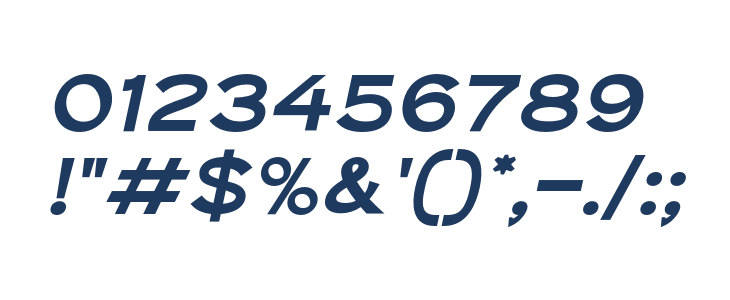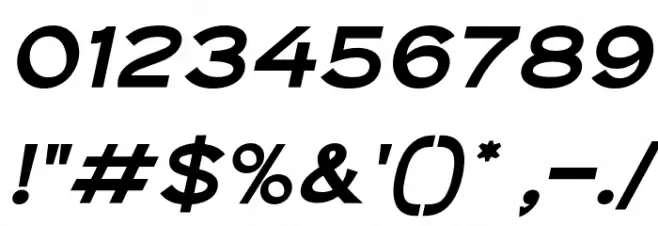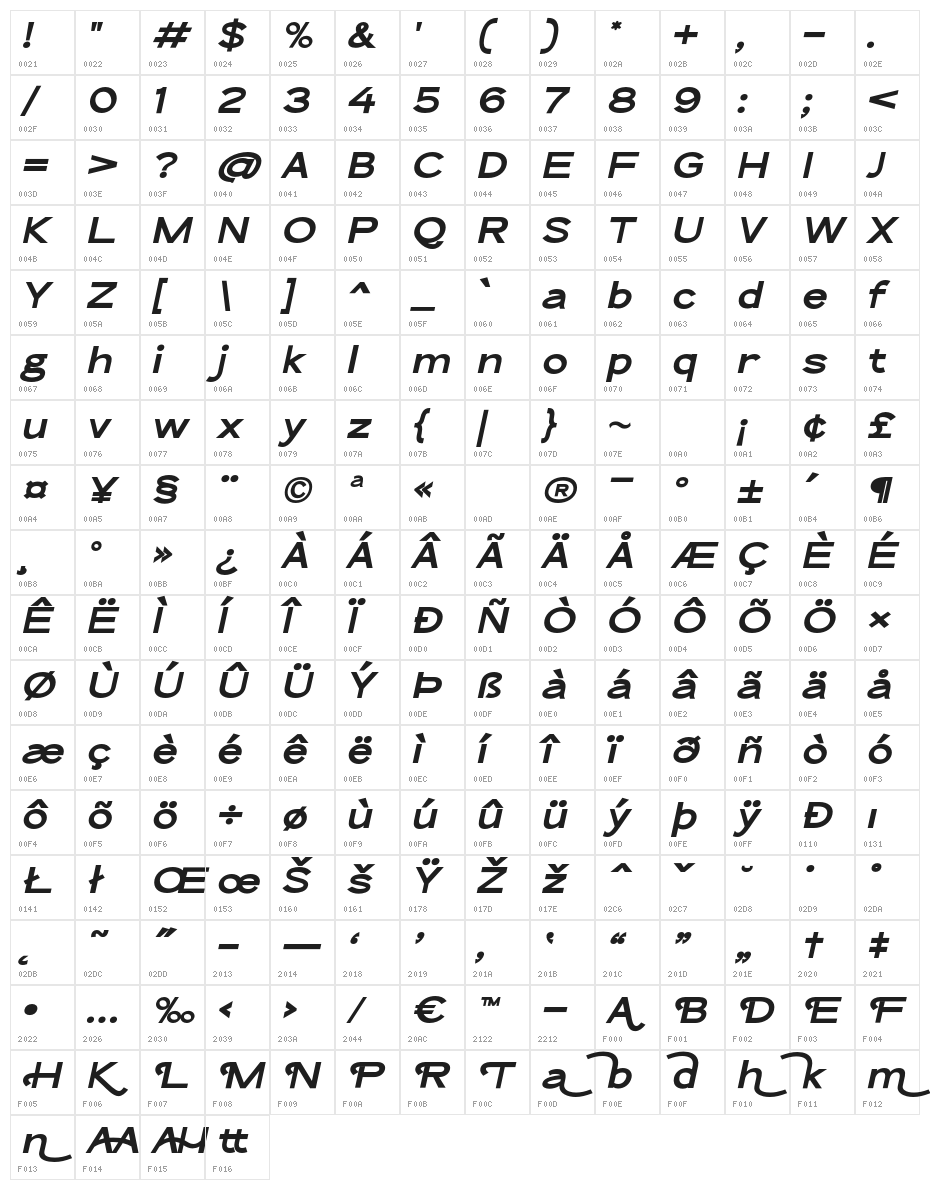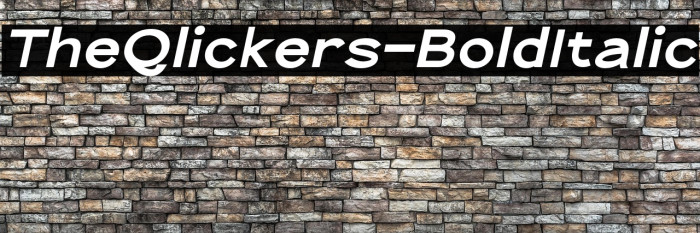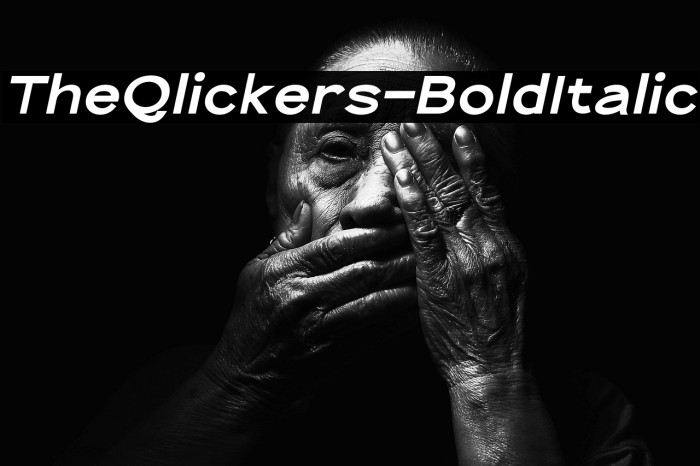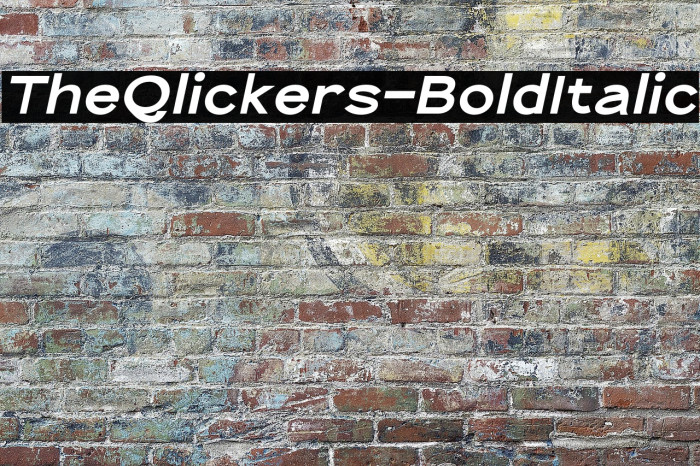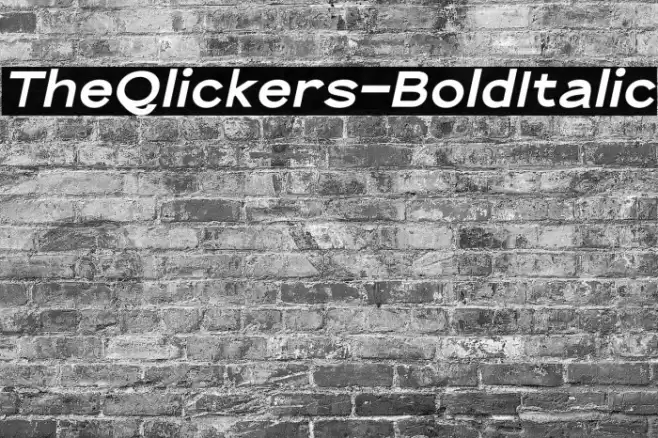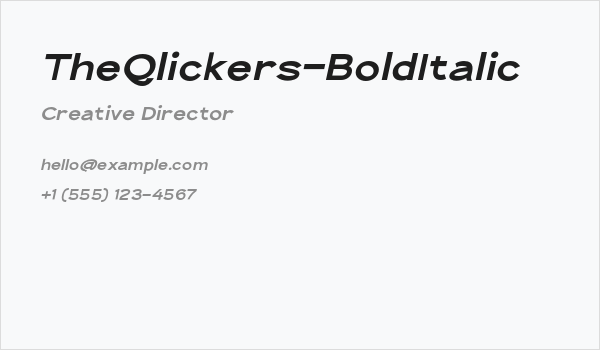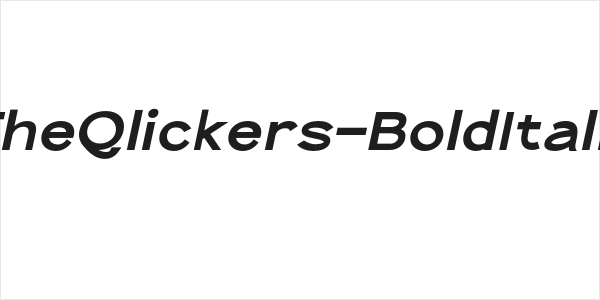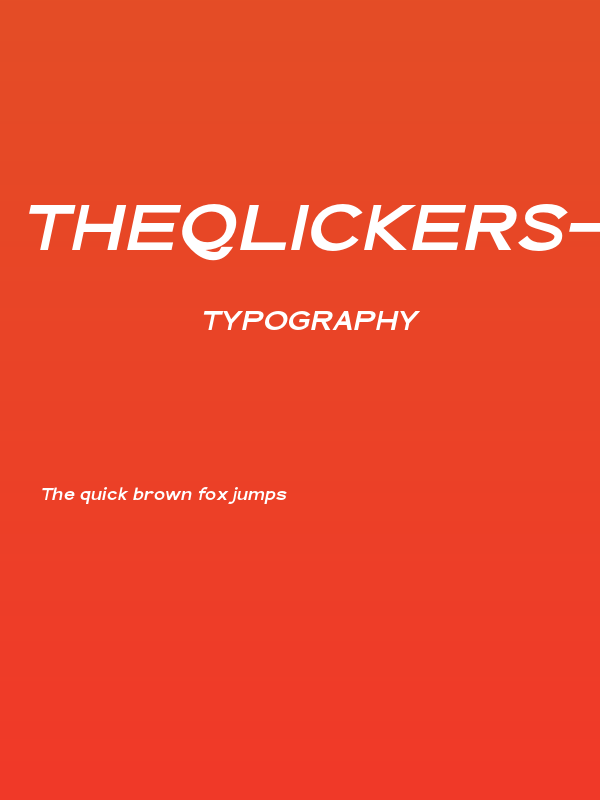
TheQlickers-BoldItalic Font
TheQlickers-BoldItalic Description
This font exhibits a bold and italicized style, characterized by its slanted and thick strokes. The uppercase and lowercase letters maintain a consistent slant, providing a dynamic and modern appearance. The numerals are clear and bold, ensuring readability. Special characters are designed with the same boldness and slant, integrating seamlessly with the alphabet. The overall design is sleek and contemporary, making it suitable for attention-grabbing headlines and modern branding.
NameTheQlickers-BoldItalic
Font FamilyThe Qlickers
StyleBold Italic
ContrastMedium
Overall StyleModern
Use CaseHeadlines, Logos, Advertising
Proposed ProjectsIdeal for modern branding, dynamic headlines, and stylish advertising materials.